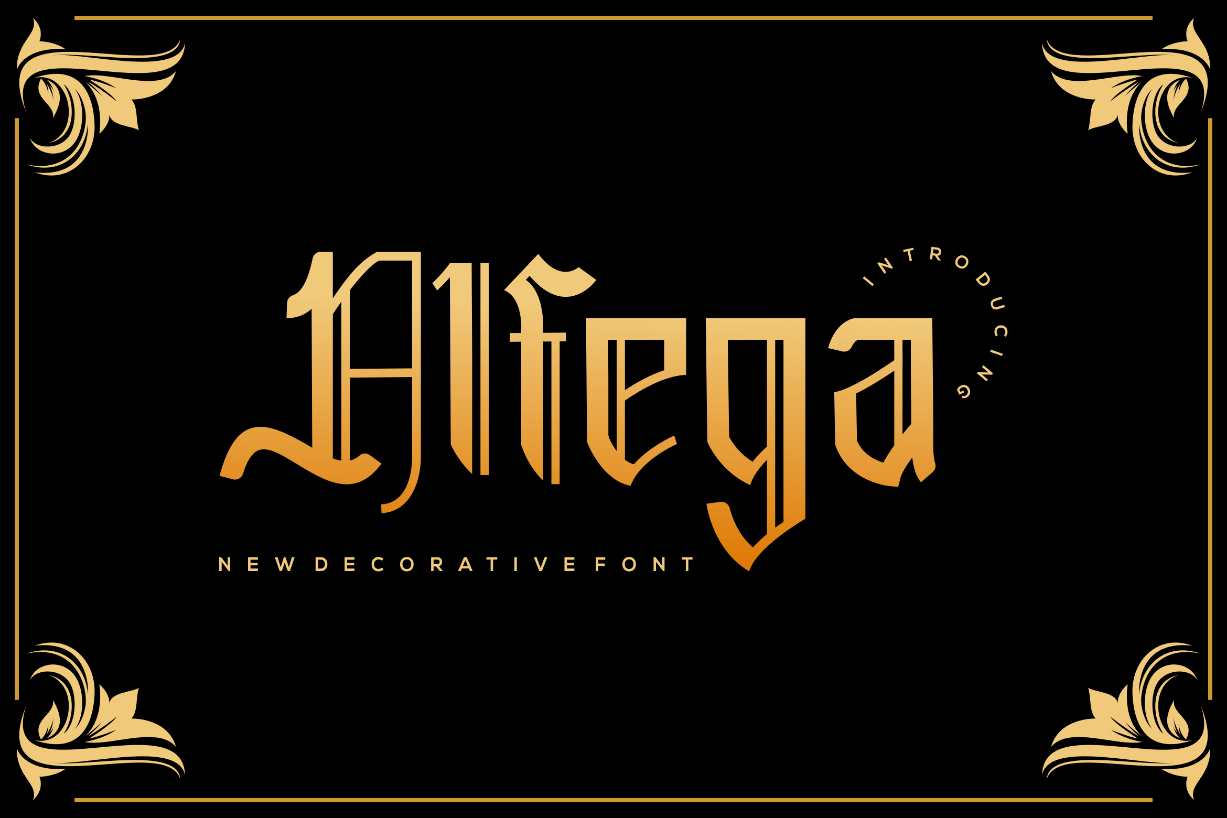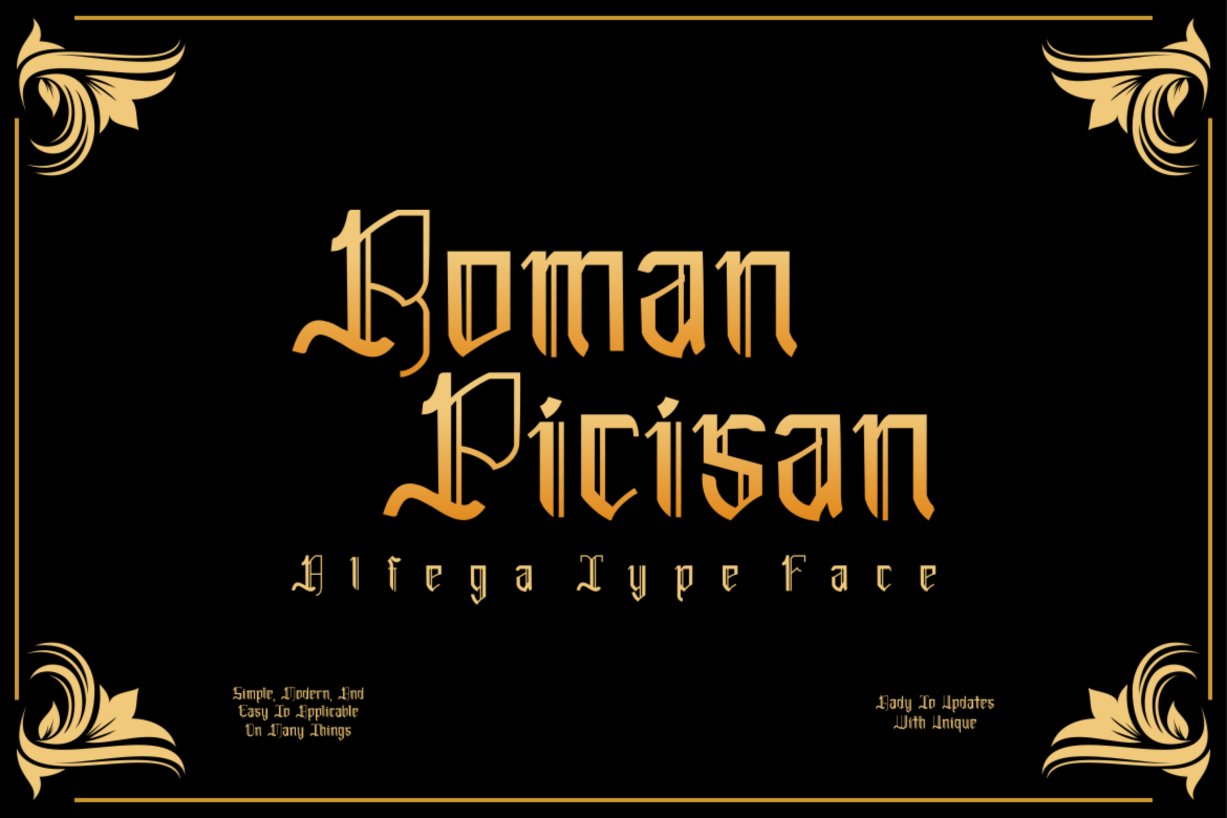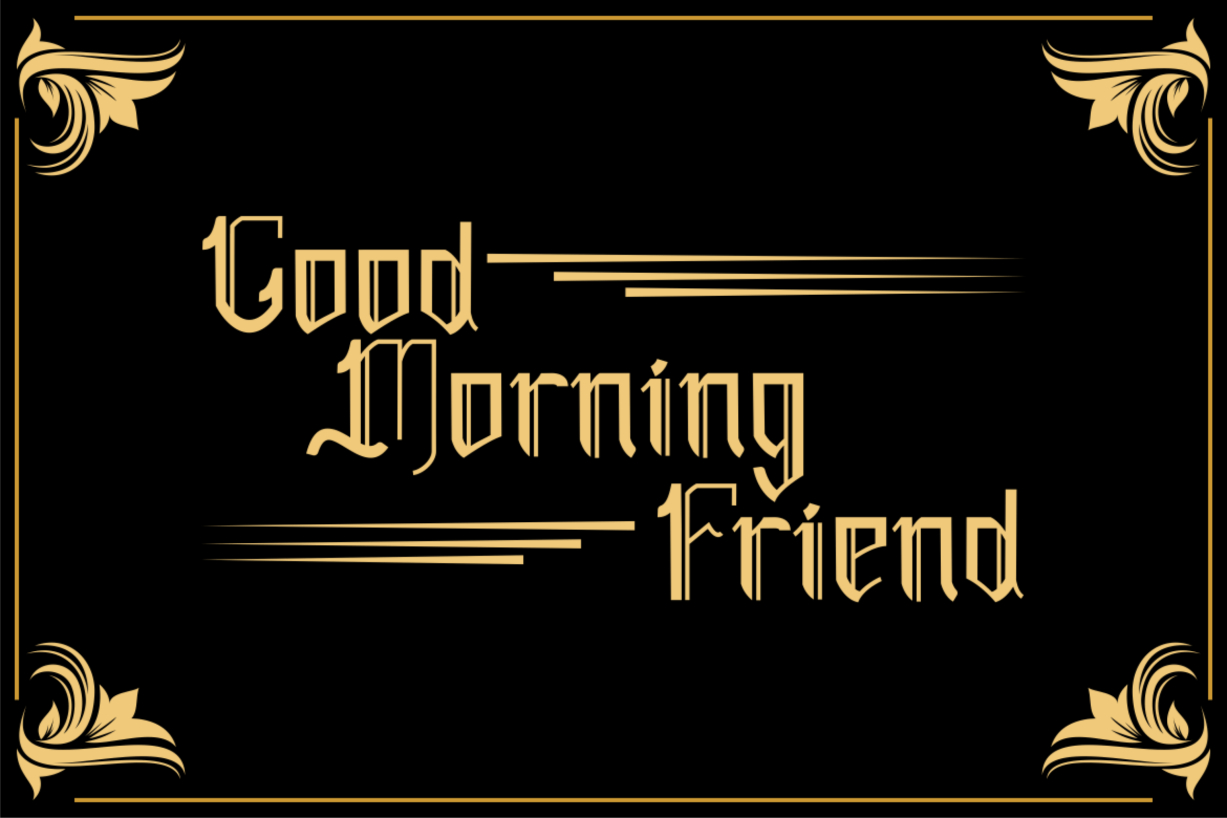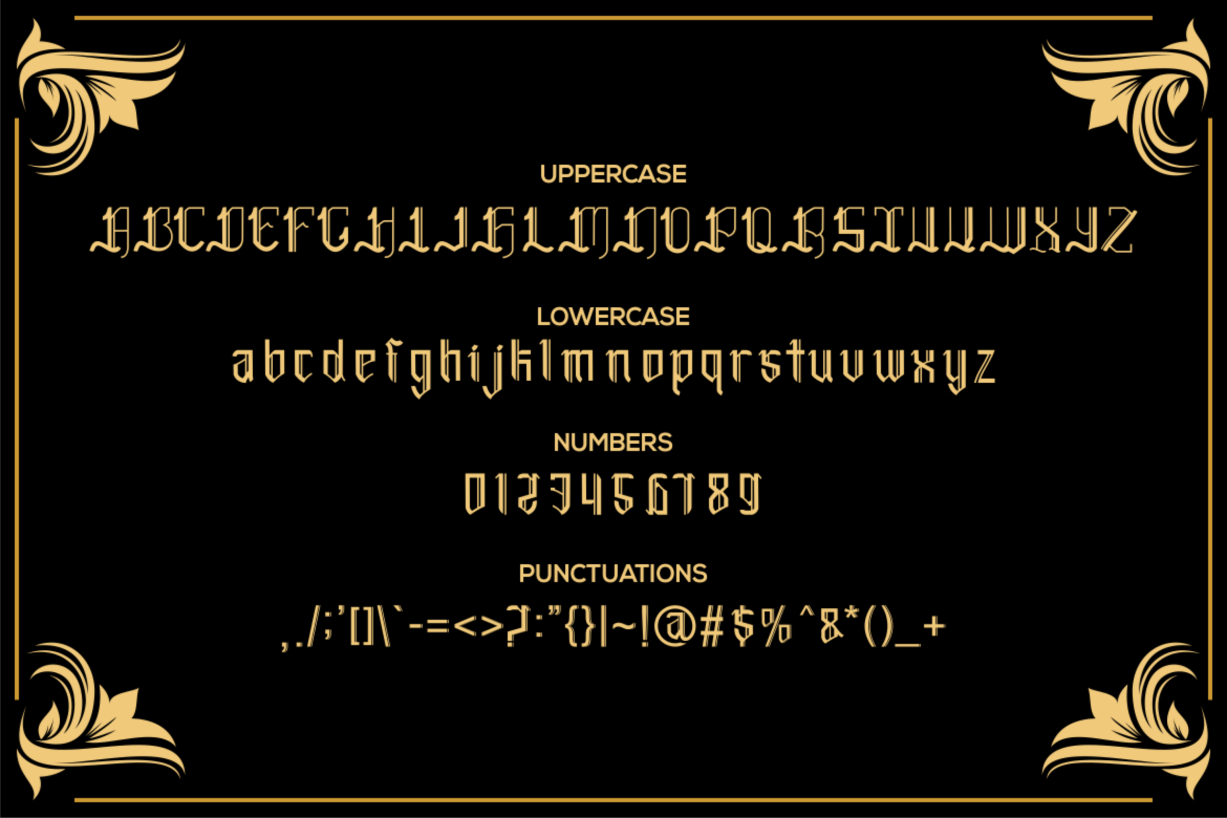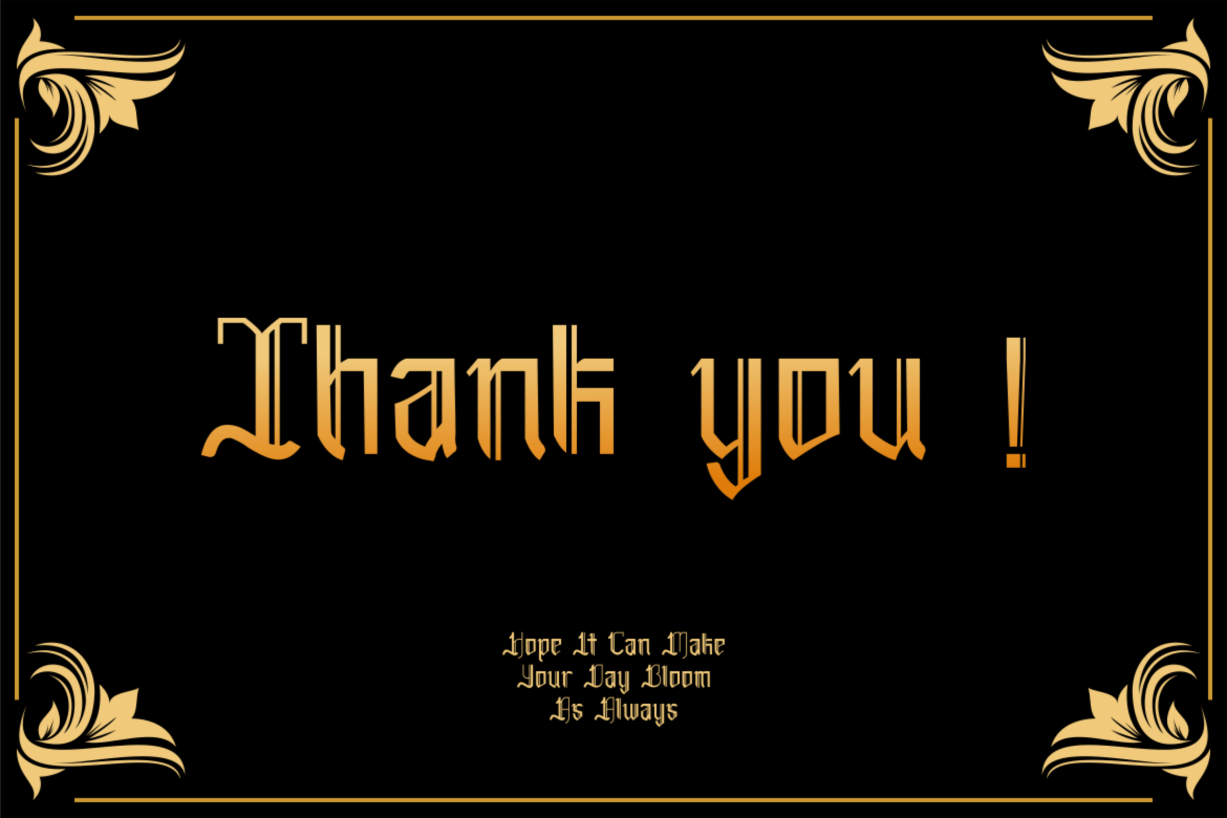
About Alfega Font
Alfega is a modern, bold, and authentic blackletter font. The font is suitable for any branding project like logo, t-shirt printing, esport, and many more. It looks outstanding in a wide range of contexts.